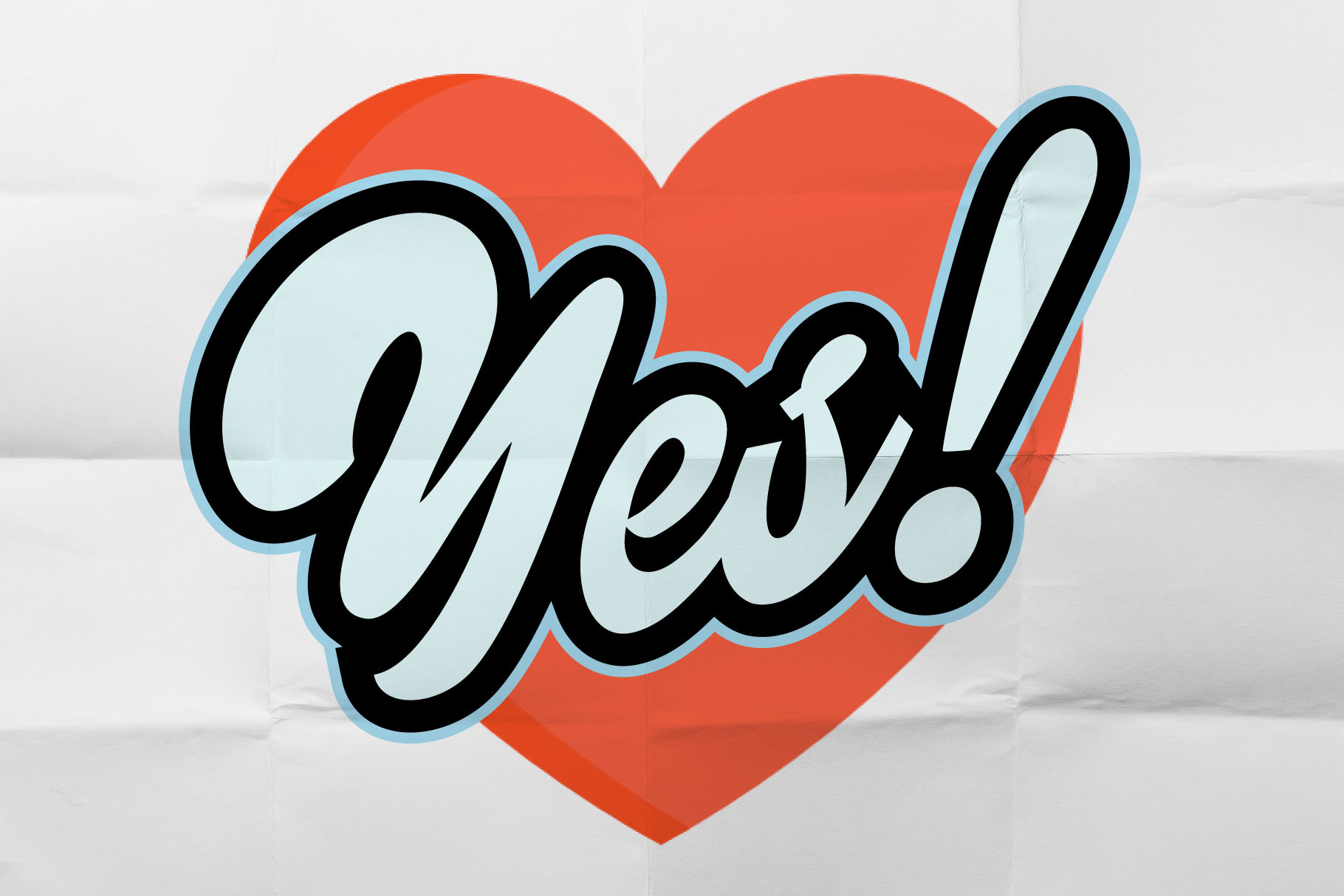
Slash Mash, Script Font
"Slash Mash" is a bold, funny, and retro-inspired script font that offers a perfect blend of fun and creativity. It is an excellent choice for projects where you want to make a bold statement and inject a touch of playful nostalgia. Whether used for branding, advertising, or artistic purposes, "Slash Mash" brings a distinct personality to any design it graces.